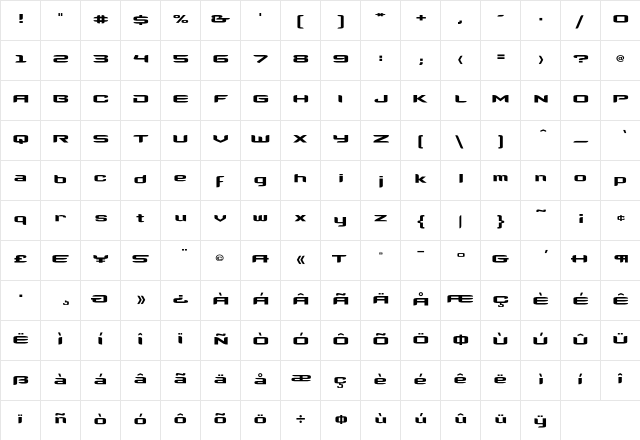
Megahertz In Font Preview
Megahertz In
Megahertz In Font Details
Design Context for Megahertz Typeface
Megahertz takes a measured approach to typography — its balanced proportions and neutral character make it a reliable workhorse for both digital and print work.